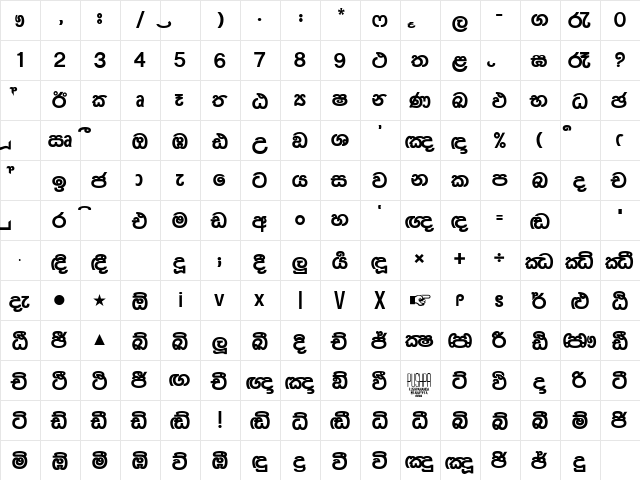
Design Context for FMGanganee Typeface
FMGanganee takes a measured approach to typography — its balanced proportions and neutral character make it a reliable workhorse for both digital and print work.